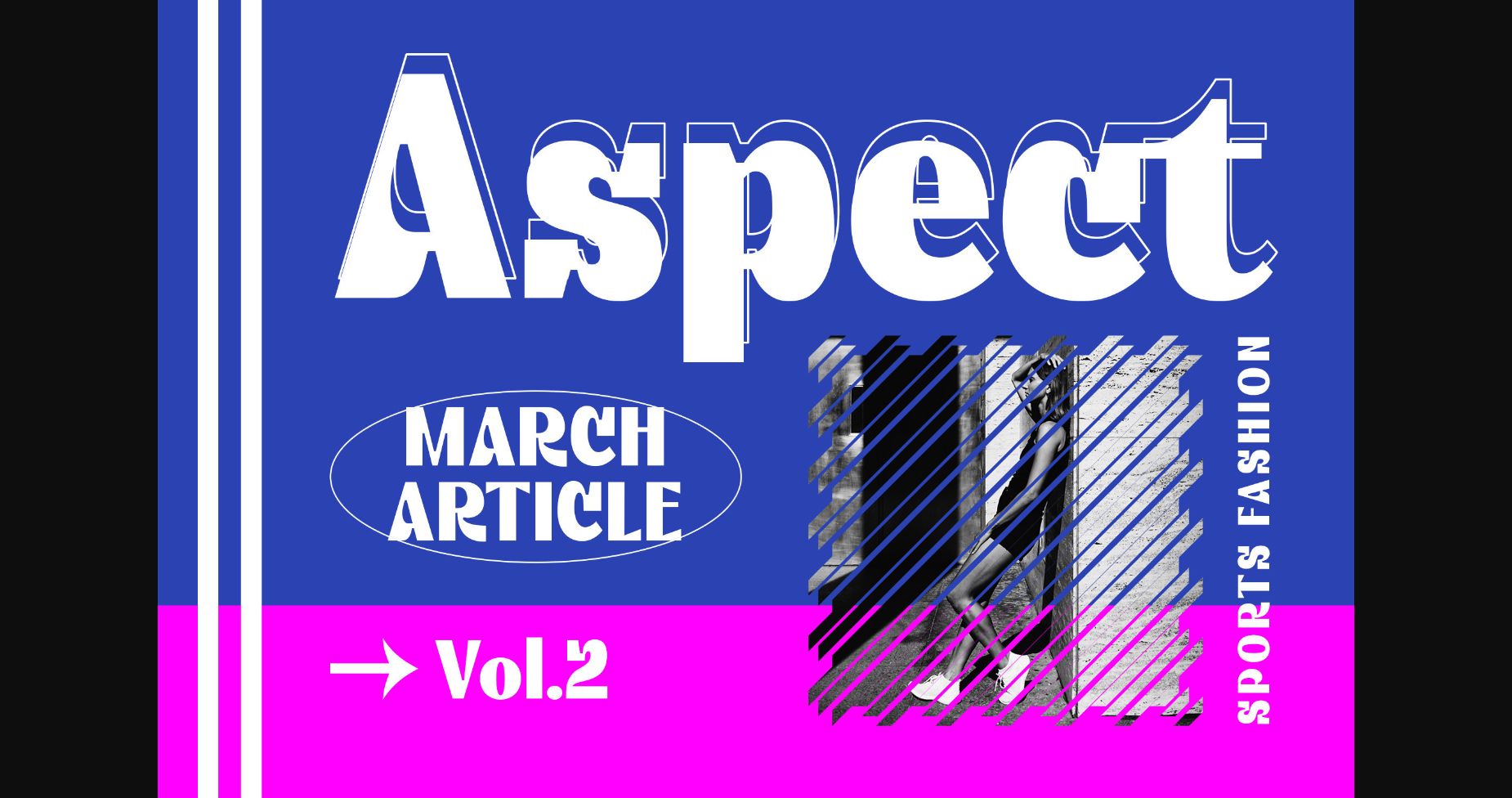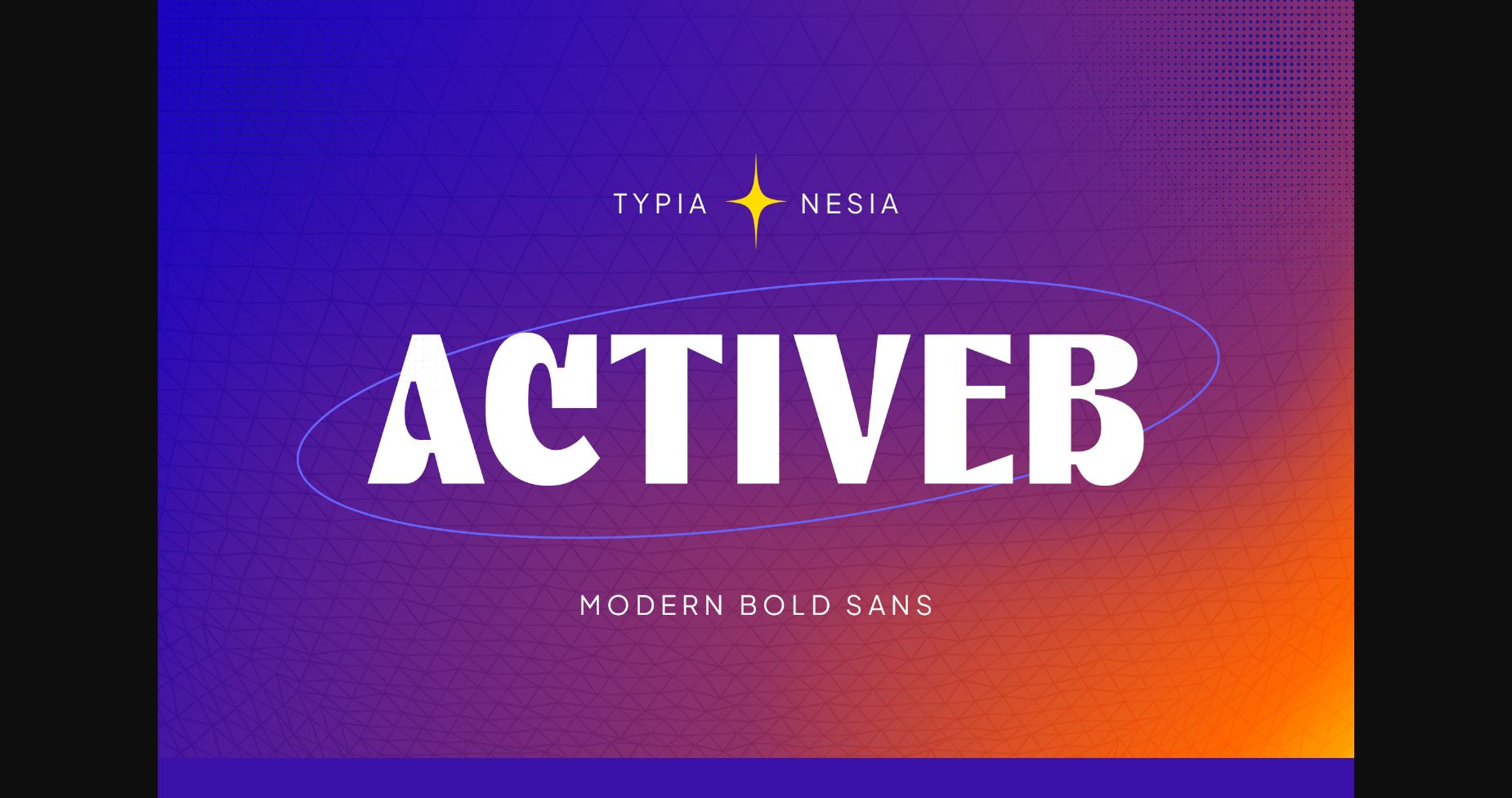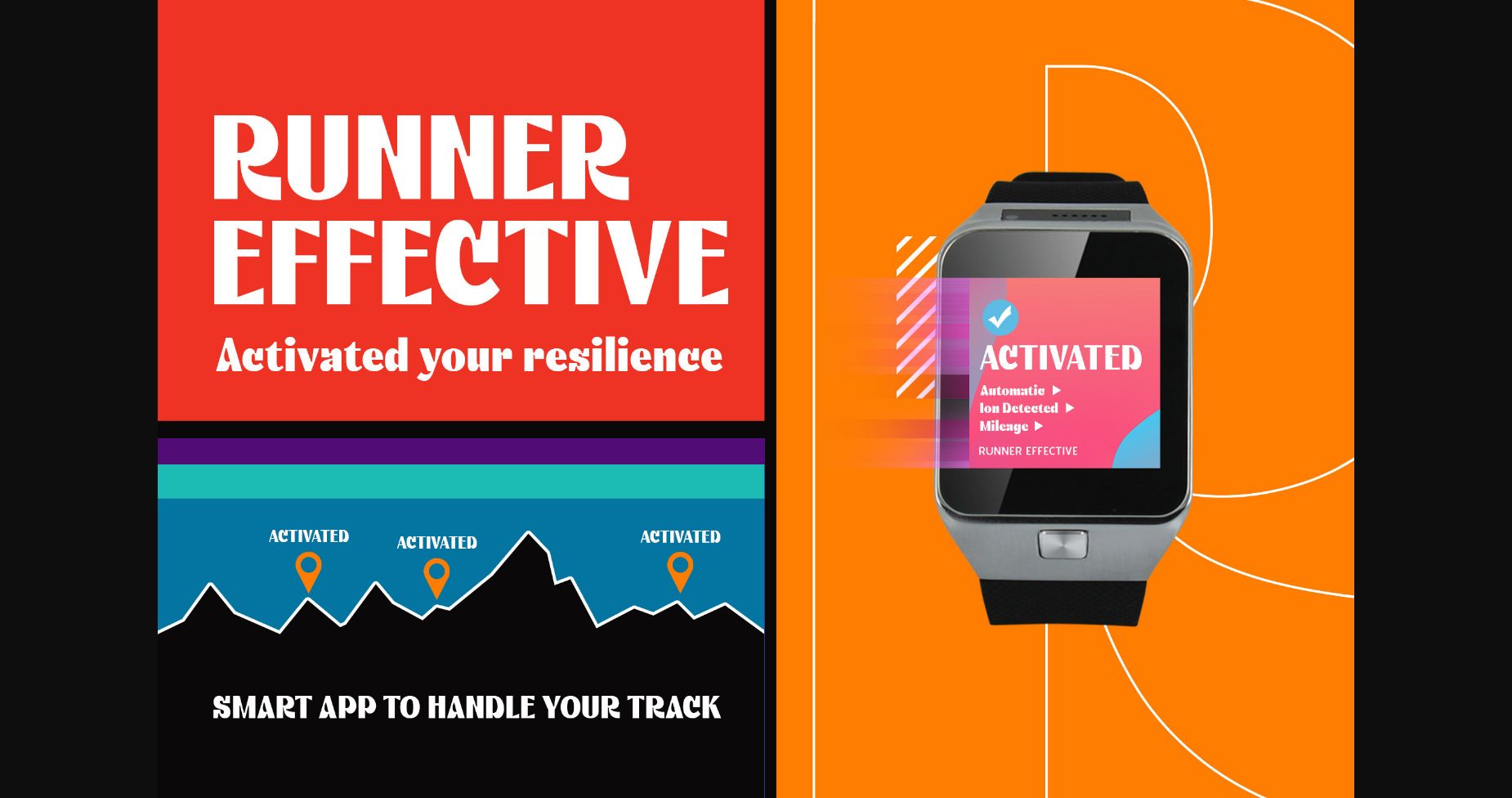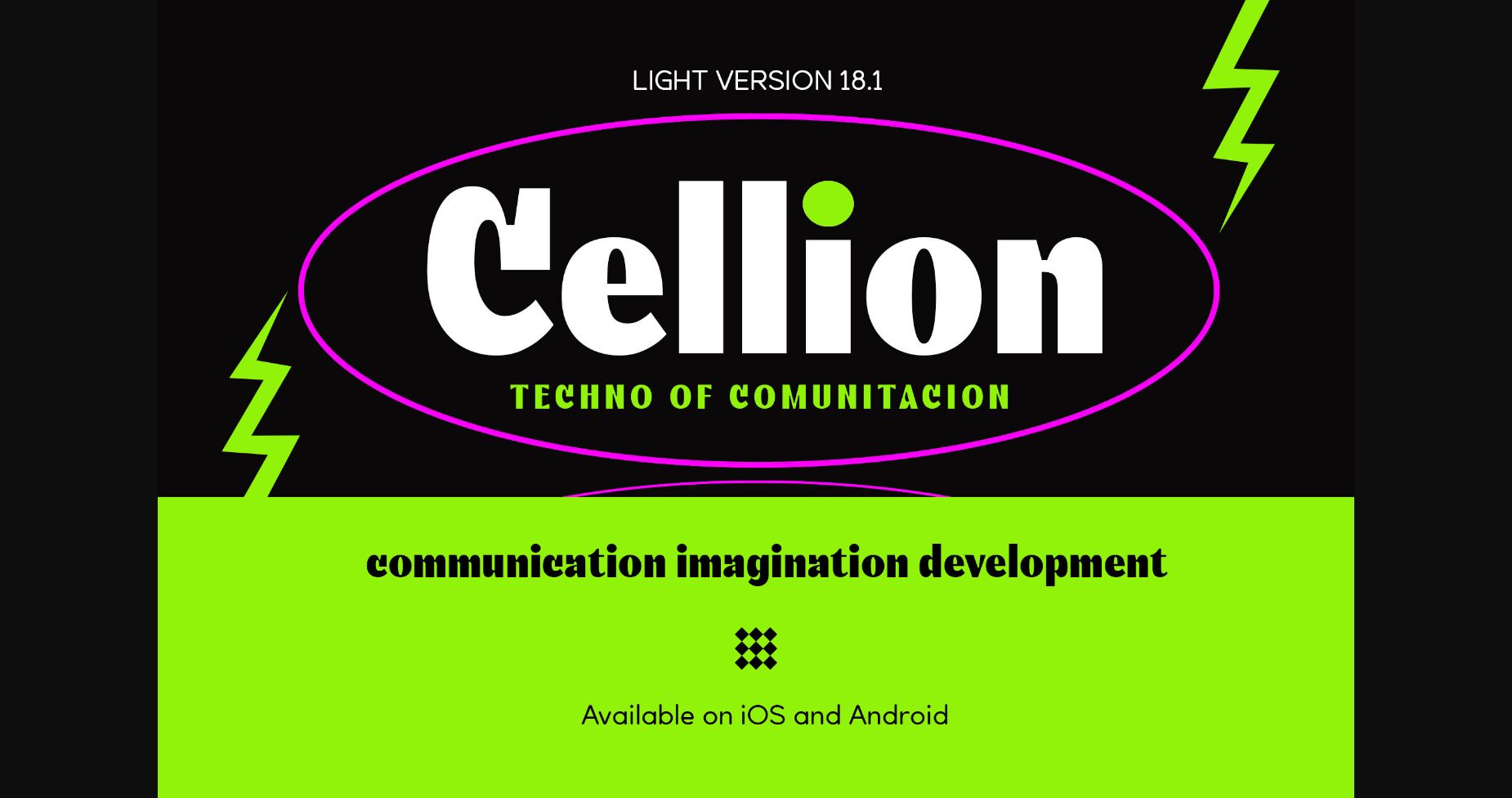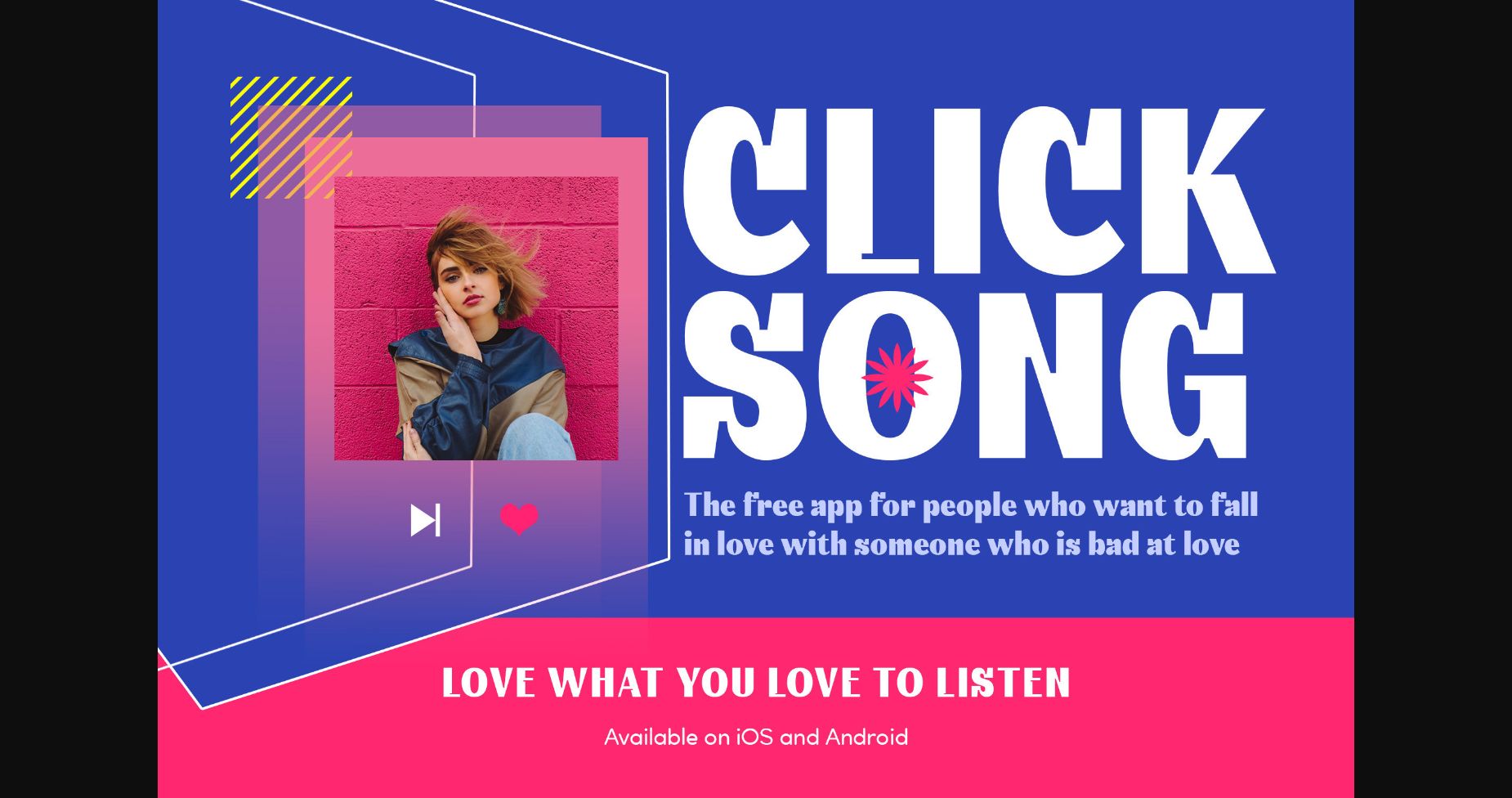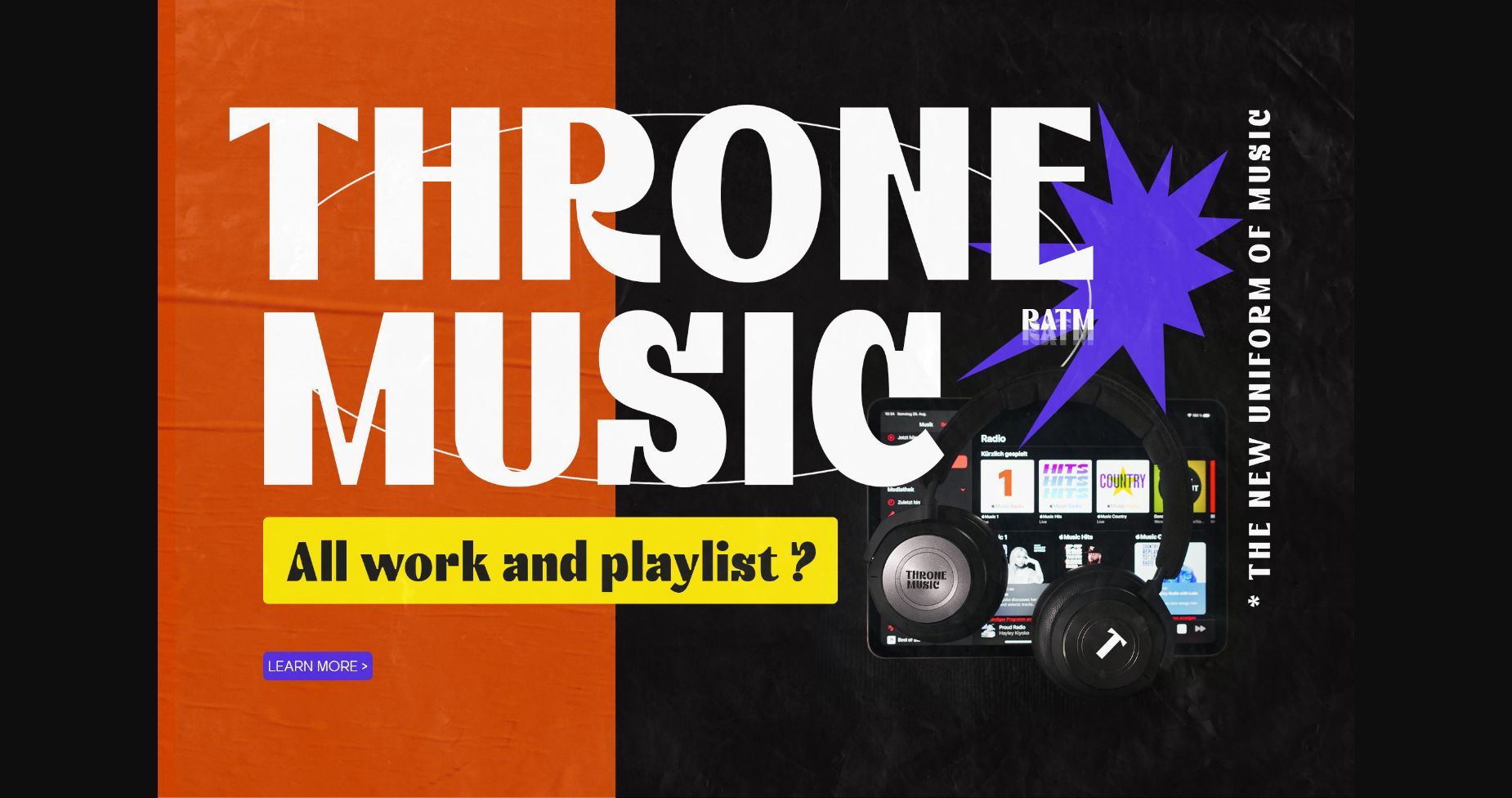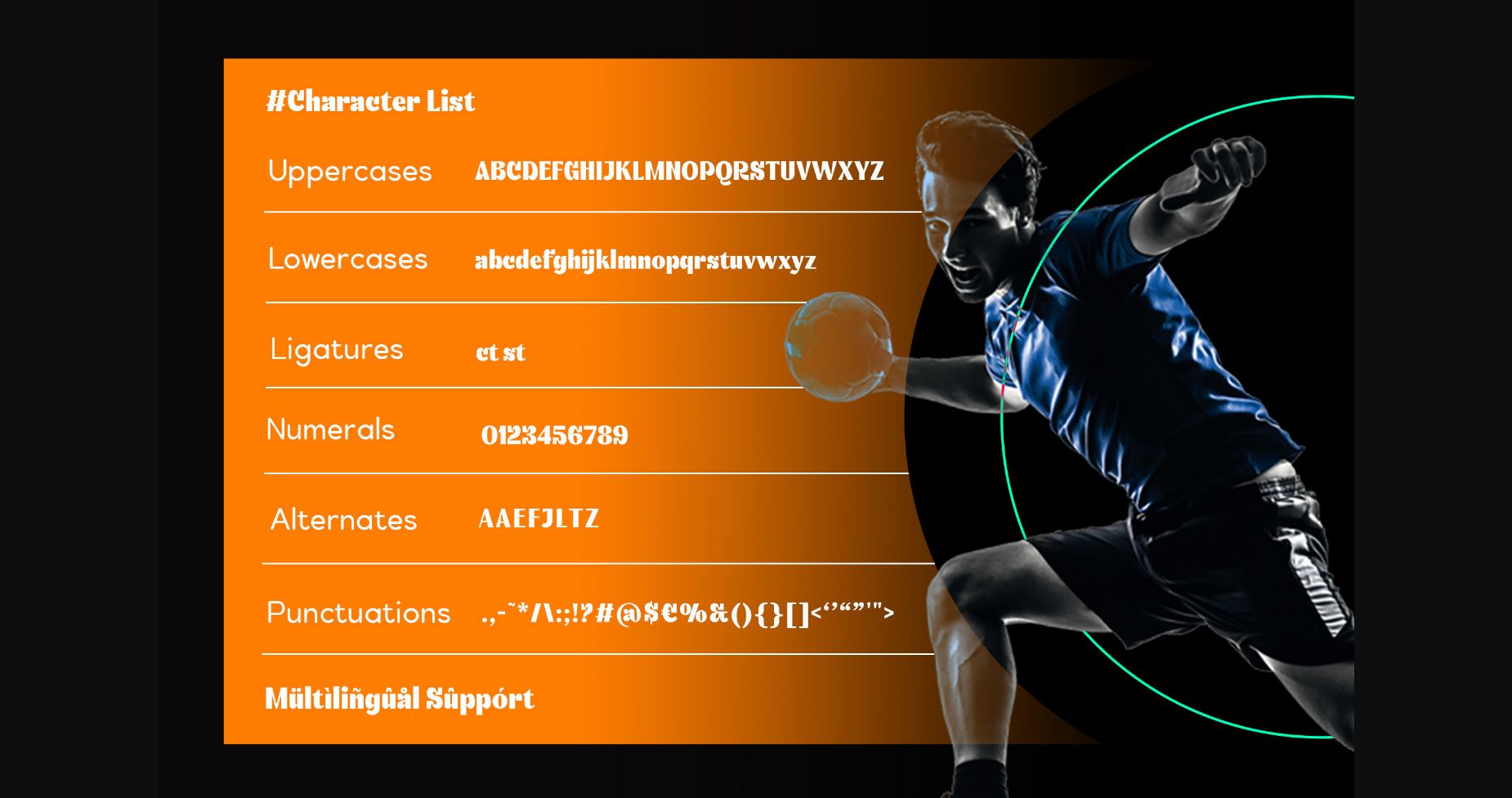
Activeb Font
About Activeb Font
Introducing Activeb, the dynamic font choice for those looking to inject energy and movement into their designs. This bold sans serif typeface is the perfect choice for sports-related projects, music-related content, and startup branding.
Designed to make a bold statement, Activeb commands attention with its strong, clean lines and geometric shapes. Its display style is perfect for headlines, logos, and any other design element where you want to create impact.